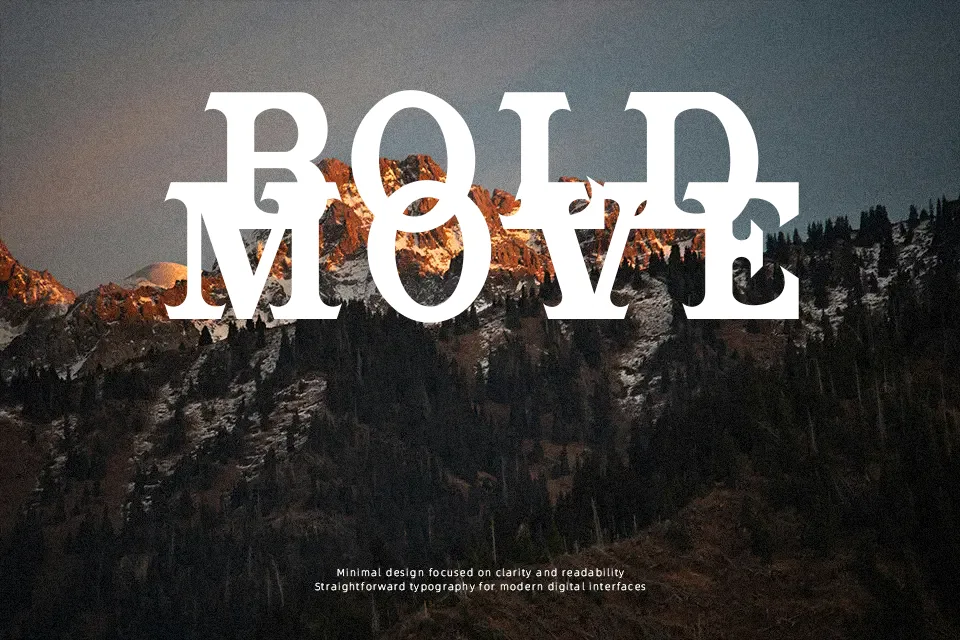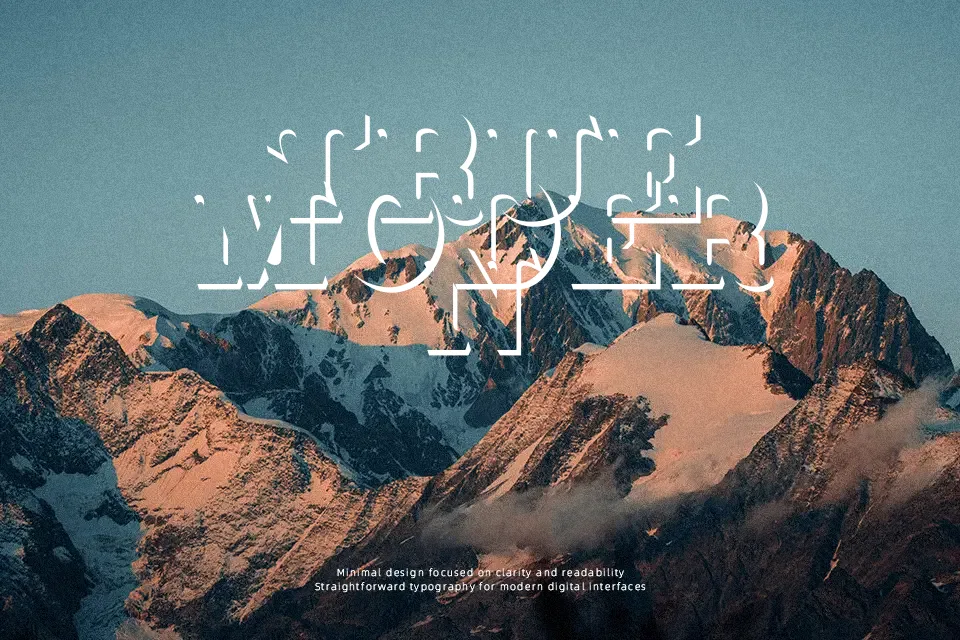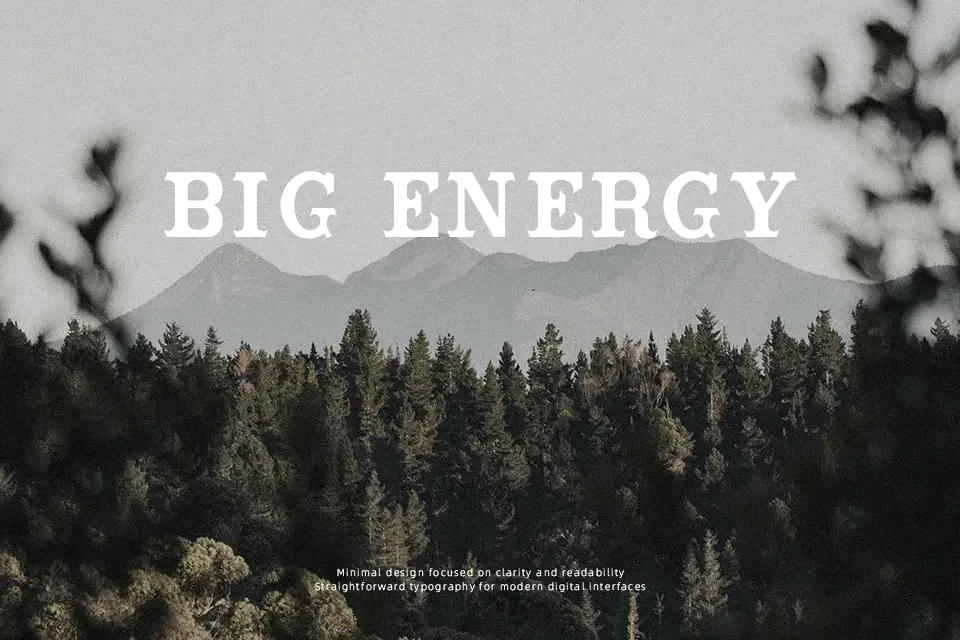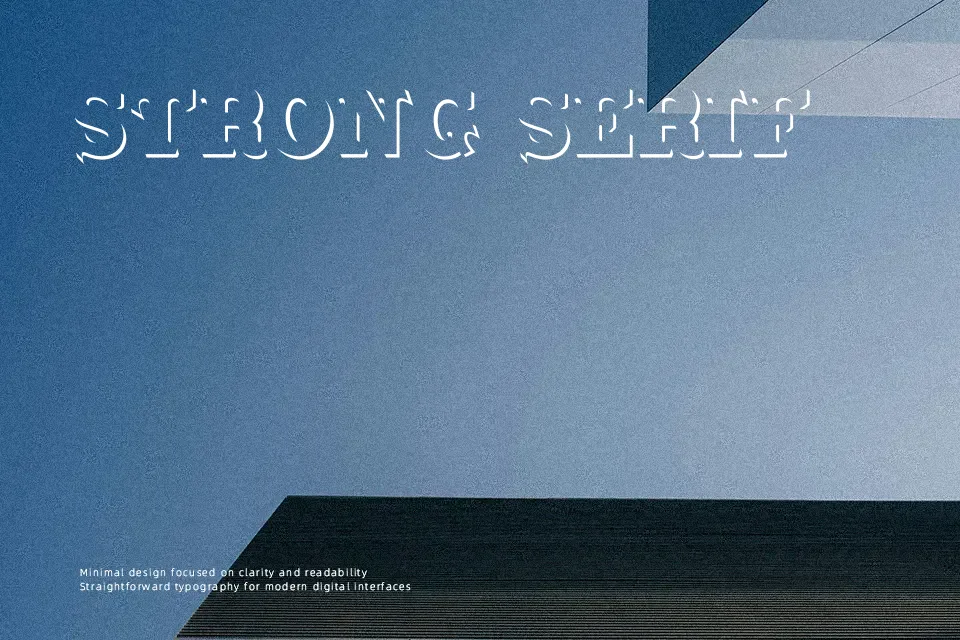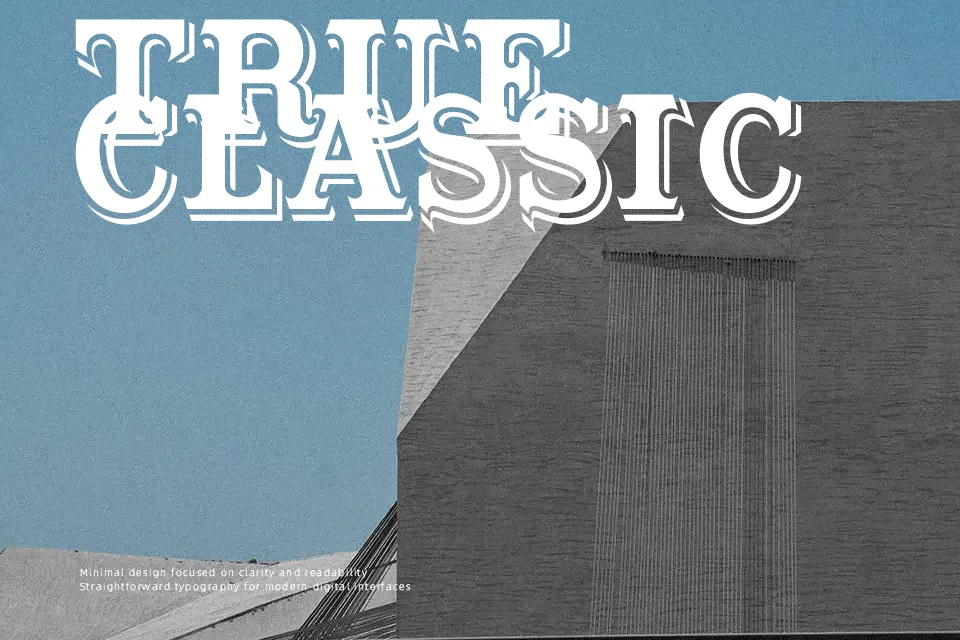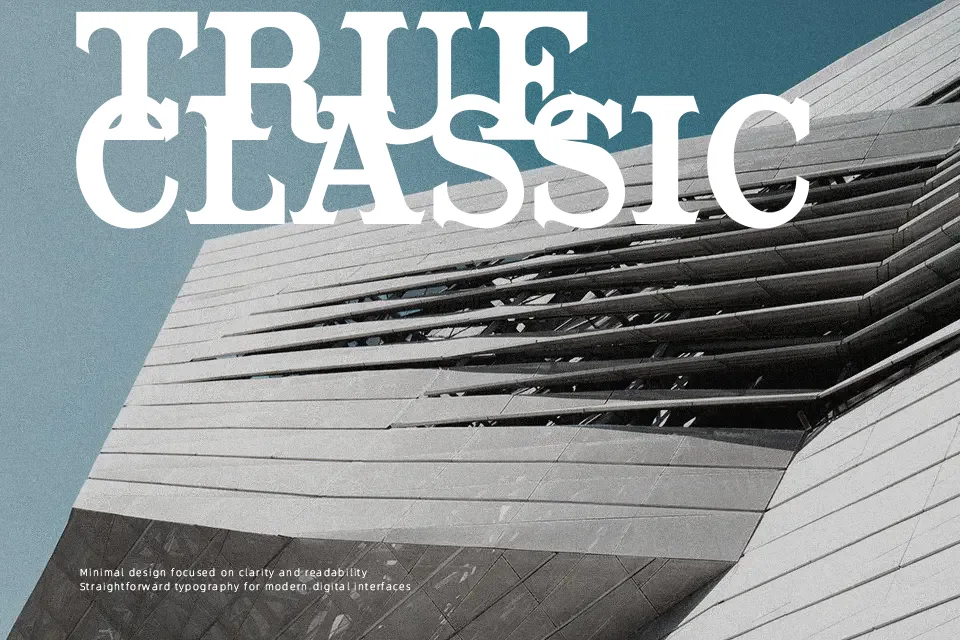
Cabbagetown Font
Designed by bobistheowl
Cabbagetown is a vintage-flavored display family with heavy strokes, compact spacing, and squared slab touches that give each letter a sturdy, blocky silhouette. The overall look feels bold, friendly, and a bit playful, more like classic poster wood type than a polished corporate face. It works well for board game boxes, event flyers, retro logos, and signage where you only need a few punchy words to carry the message. On the other hand, the weight and decorative shapes make it tiring in long paragraphs or tiny captions, so it is better kept for headlines and short phrases instead of dense editorial layouts.
retro poster headlines
board game or tabletop packaging
nostalgic logo wordmarks
event flyers and banners
long body copy or articles
small UI labels or app text
formal corporate reports
highly minimal editorial layouts
Perfect for branding, gaming, and headline, with a bold and decorative style.